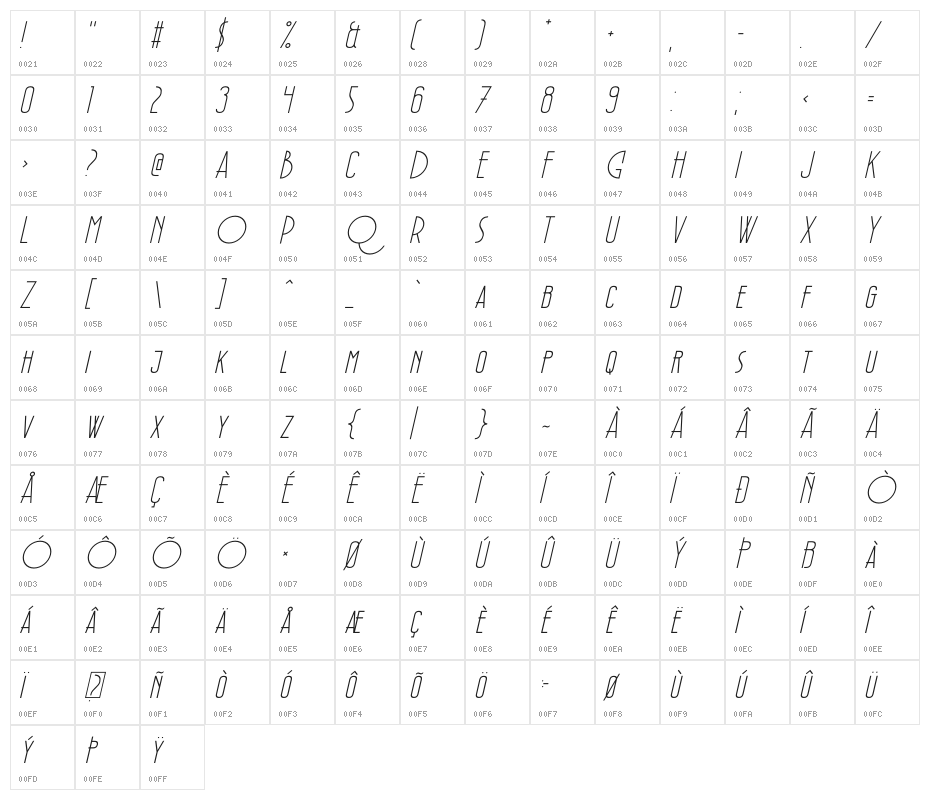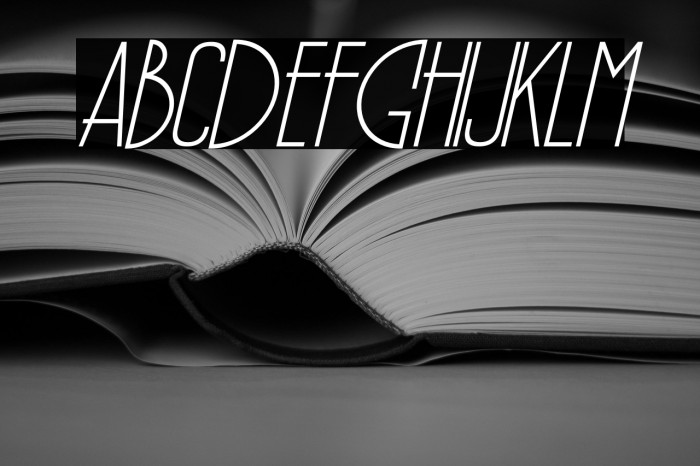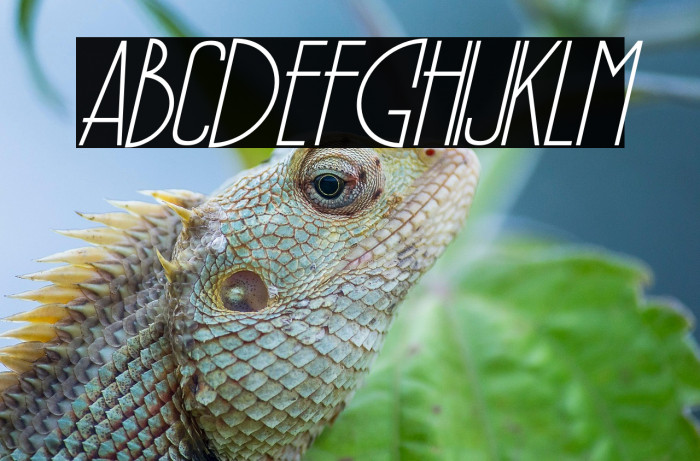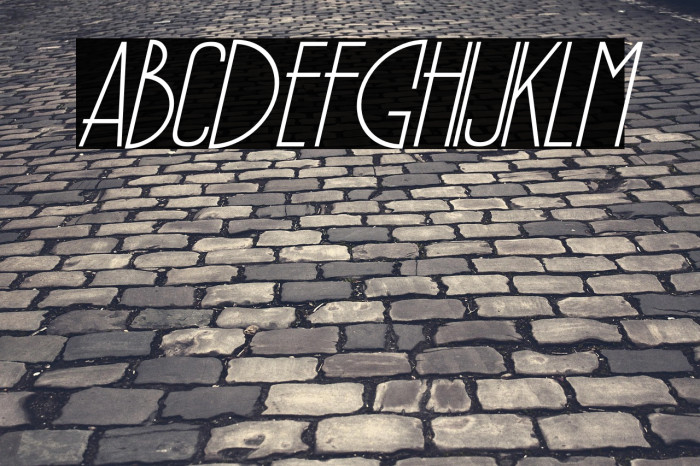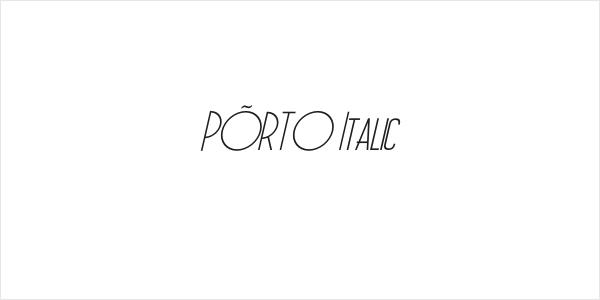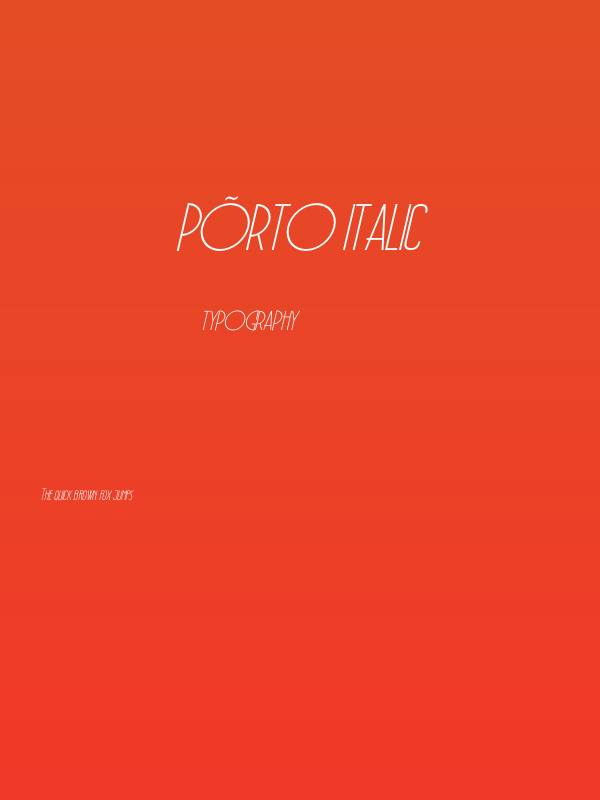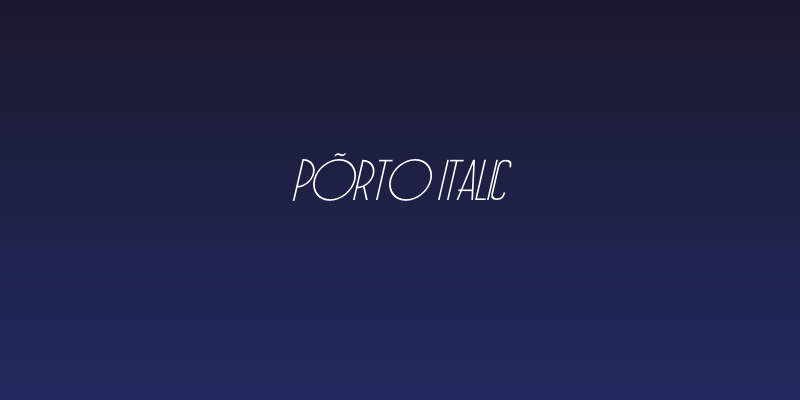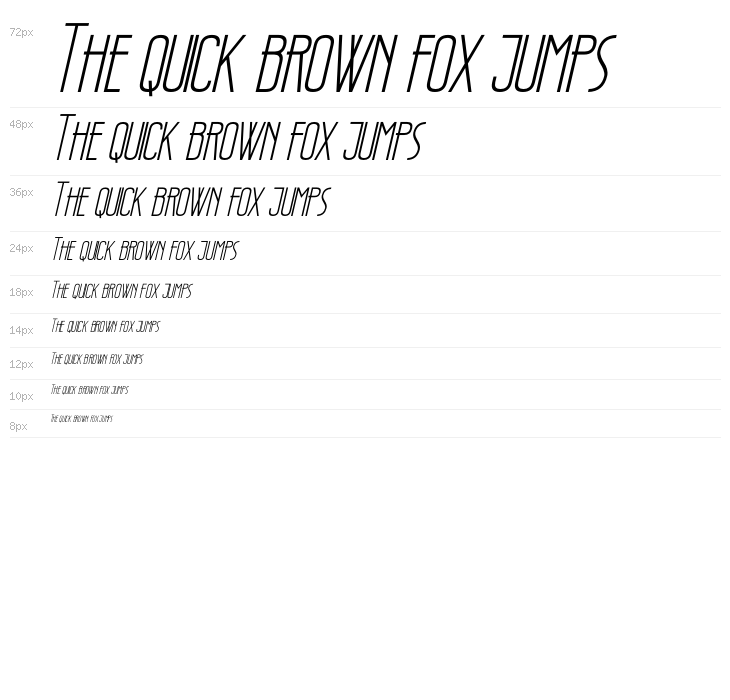
PÕRTO Italic Font
PÕRTO Italic Description
This font features a sleek, elongated design with a distinct italic slant, giving it a dynamic and modern appearance. The characters are tall and narrow, with a consistent stroke width that maintains a clean and uniform look. The uppercase and lowercase letters share a similar style, enhancing the font's cohesive aesthetic. The numerals and special characters are designed to match the overall style, ensuring versatility across different uses. The font's elegant and contemporary feel makes it suitable for a variety of design projects.
| Proposed Projects | Ideal for fashion magazines, modern branding, dynamic posters, and elegant invitations. |